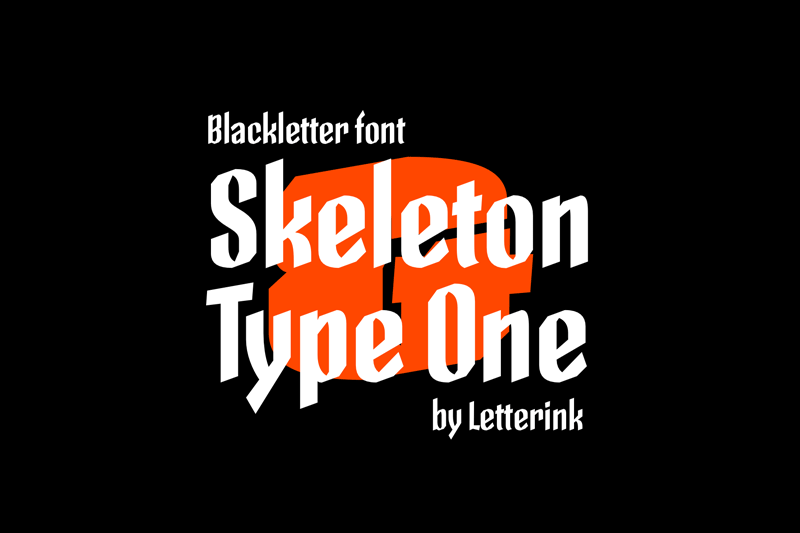
Skeleton type one is a fractured grotesque experiment. Good choice when bored with fraktur � try this one. Font made with Letterink: http://letterinkapp.com By so-called technique skeleton type design. |